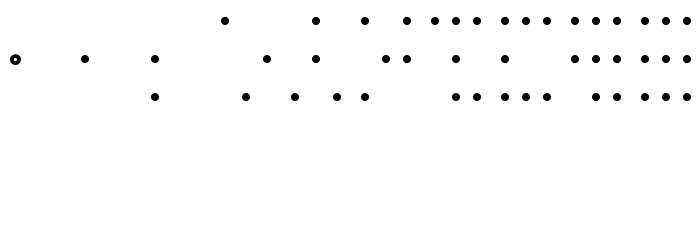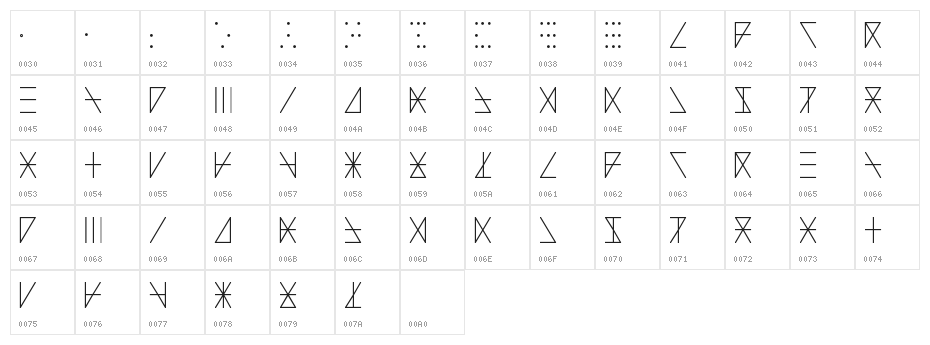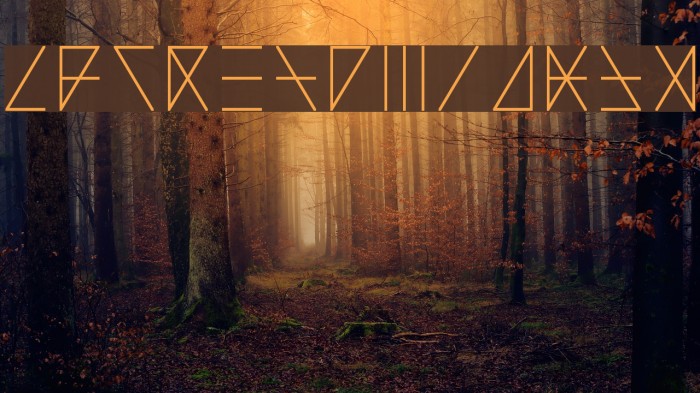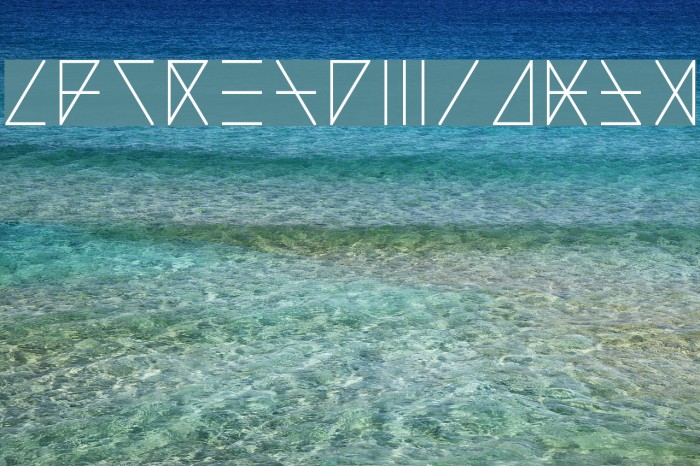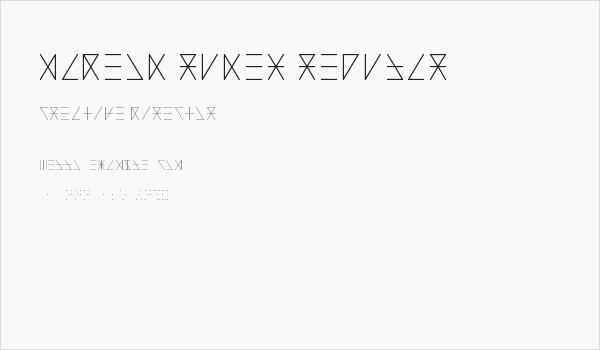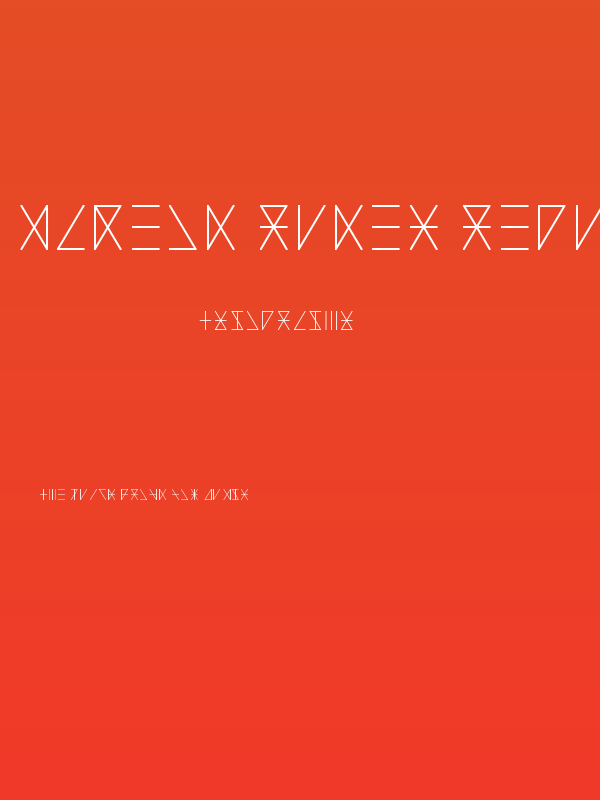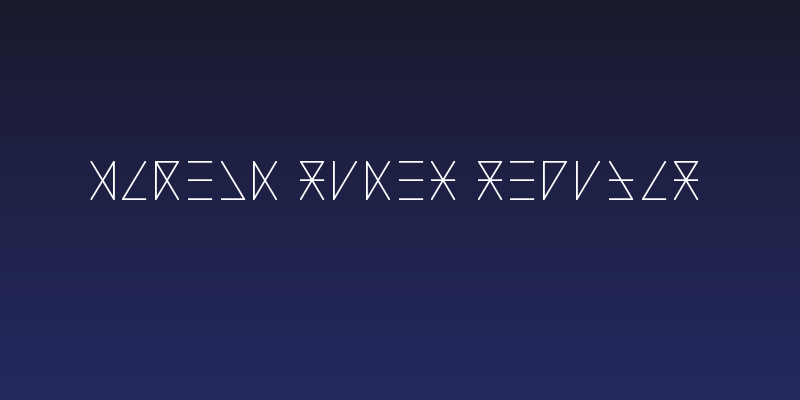
Madeon Runes Regular Font
| Cas d'utilisation | Logos, Posters, Artistic projects |
| Projets proposés | Ideal for fantasy-themed designs, game titles, posters, and artistic projects that require an ancient or mystical aesthetic. |